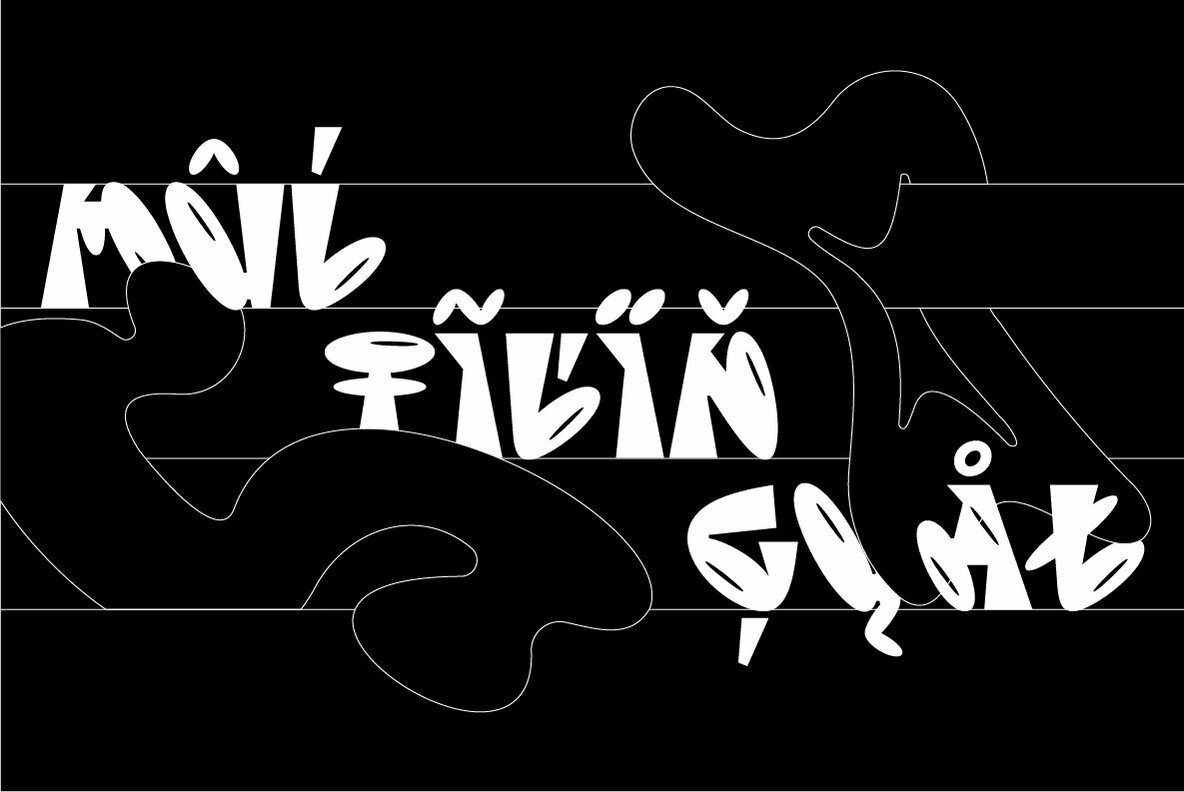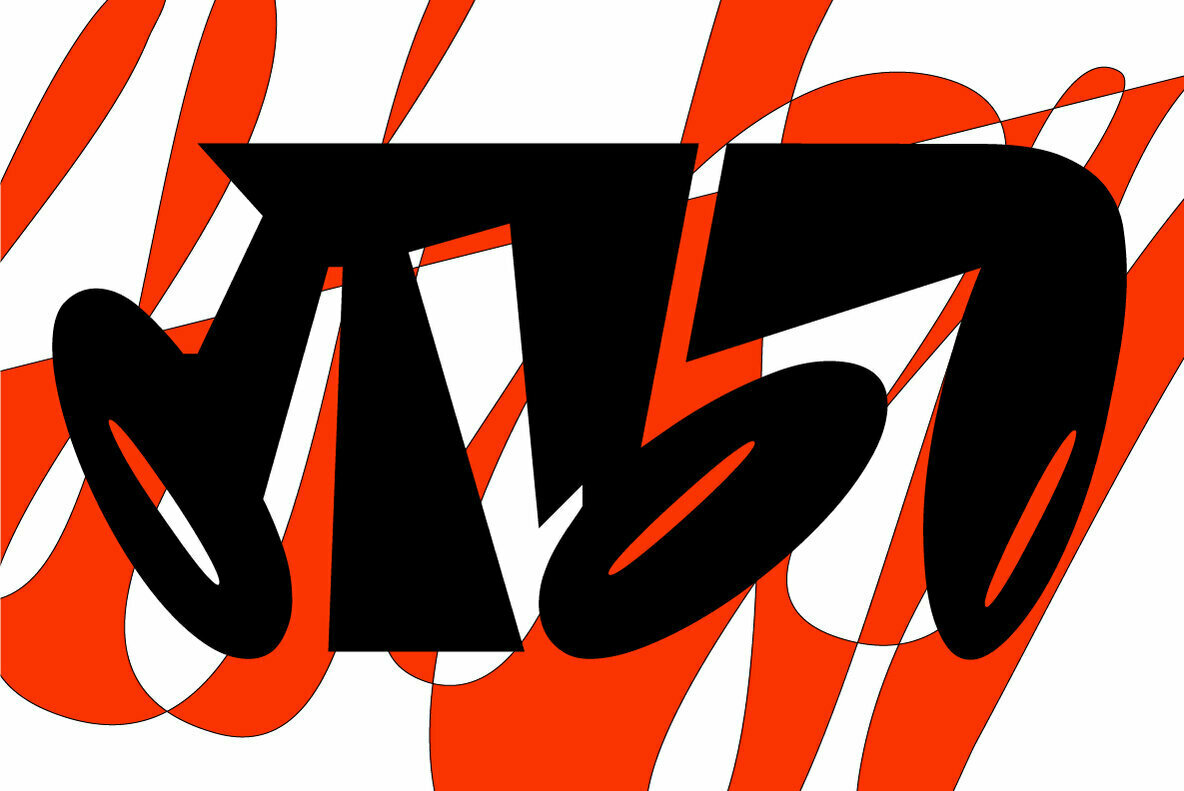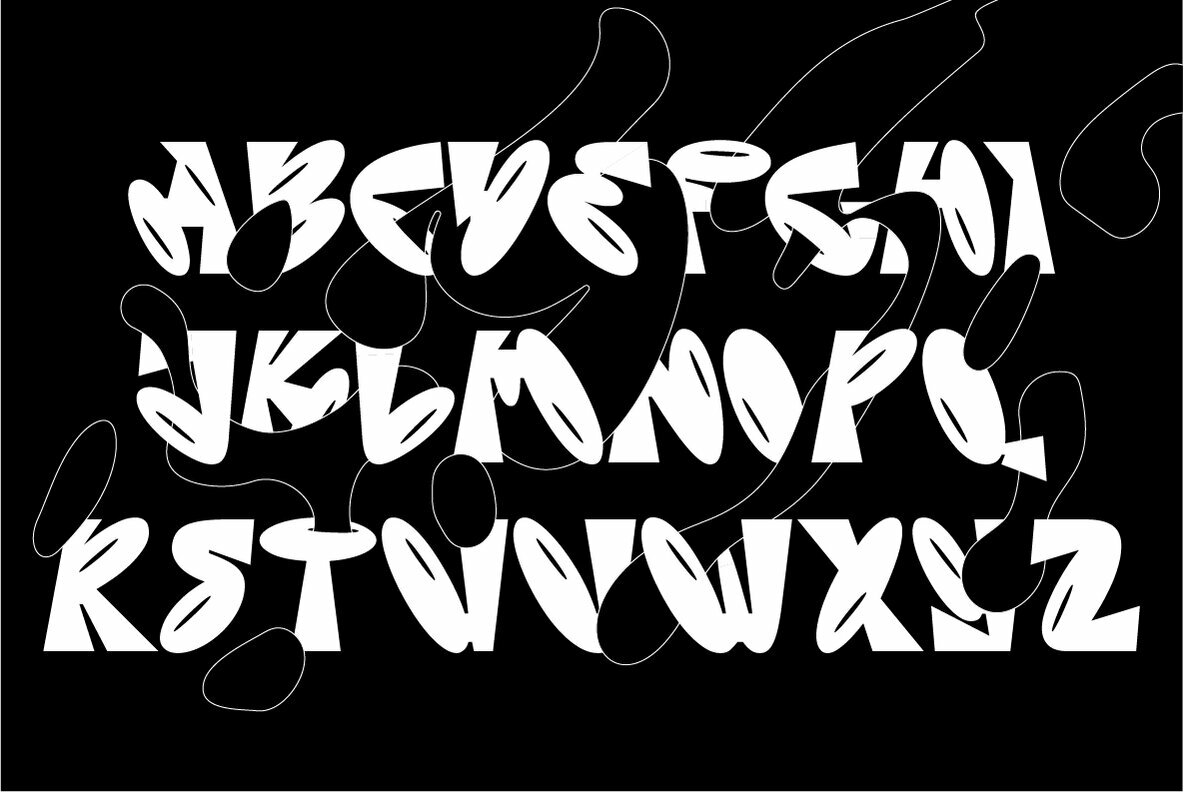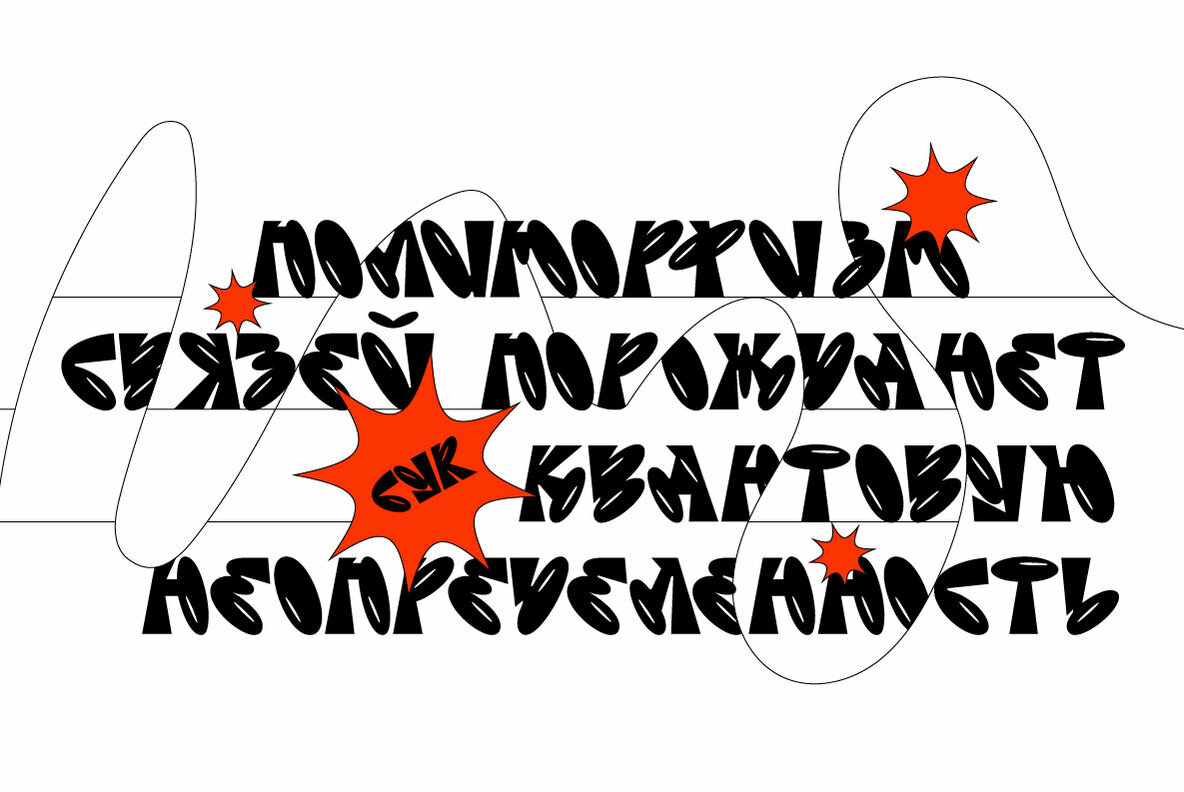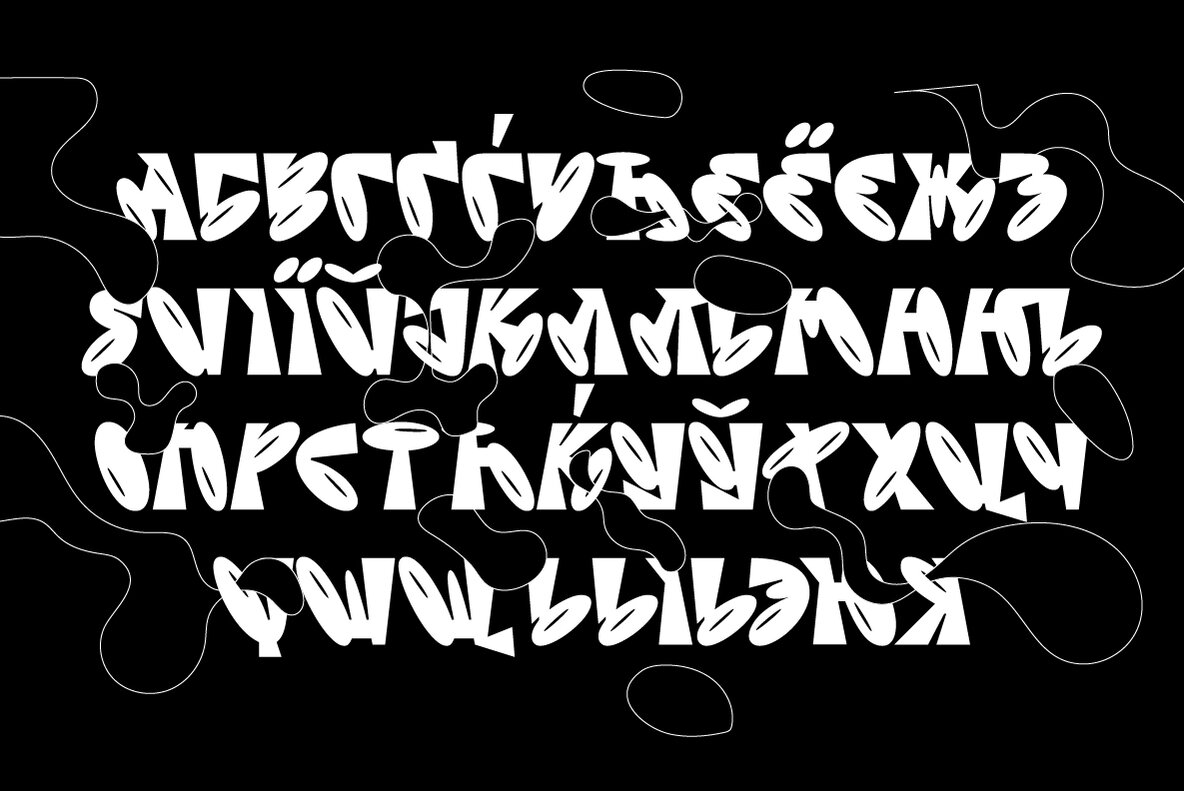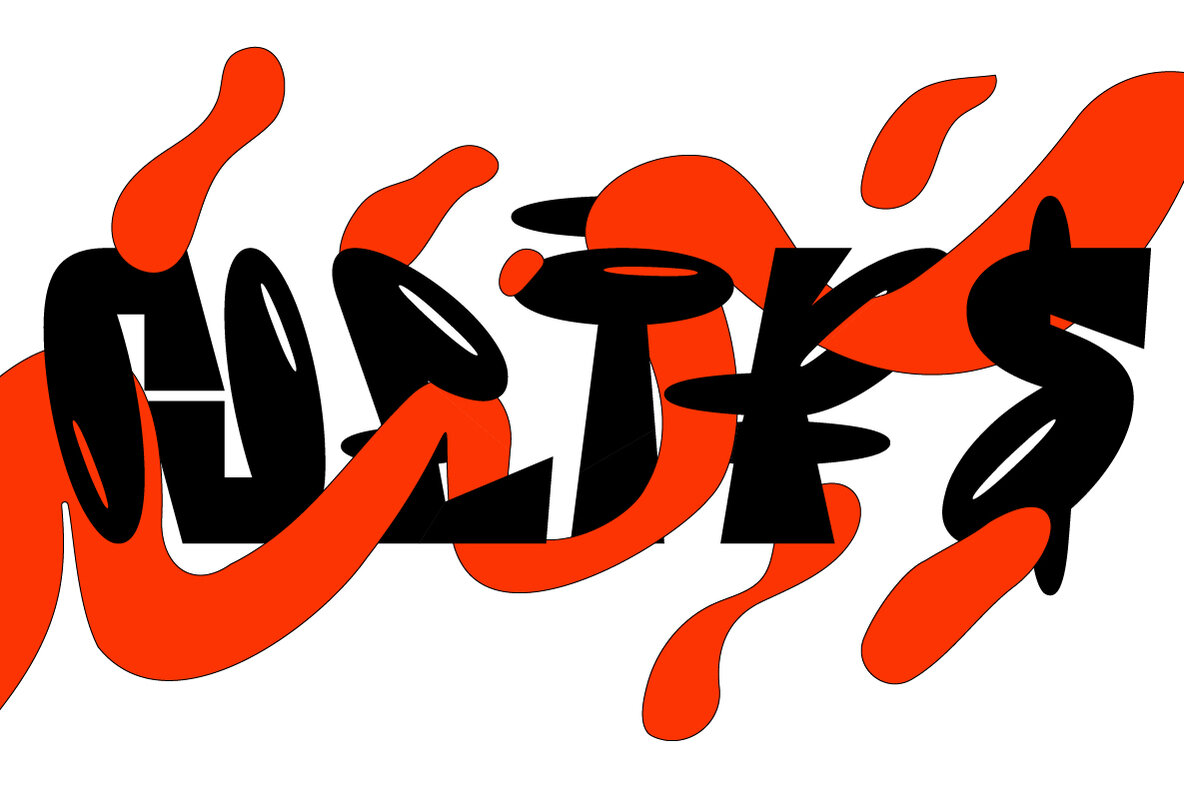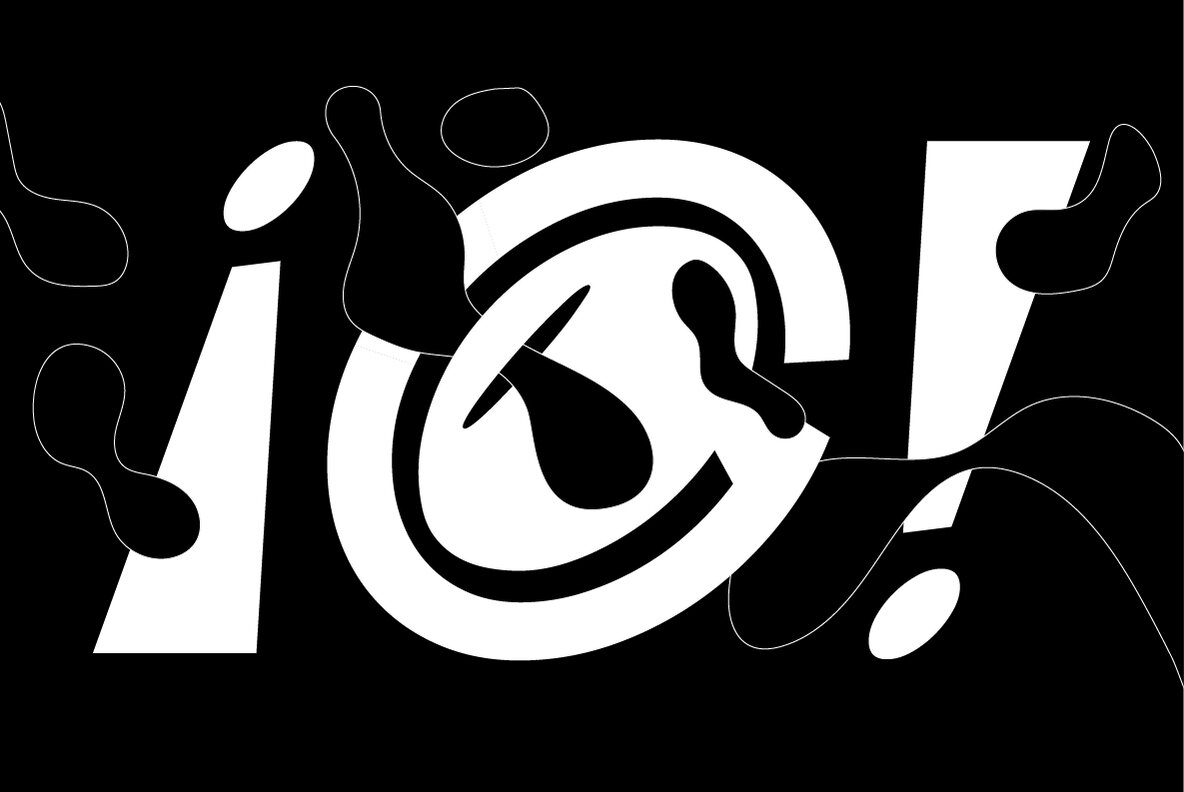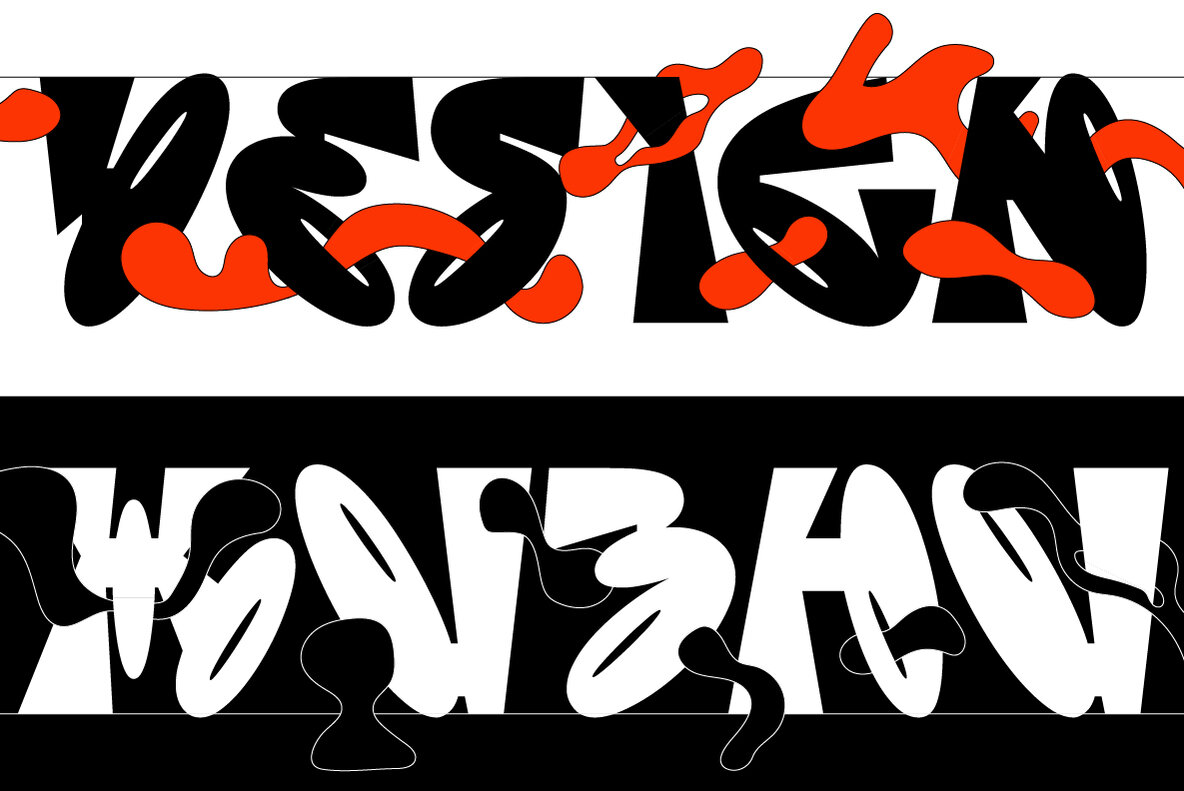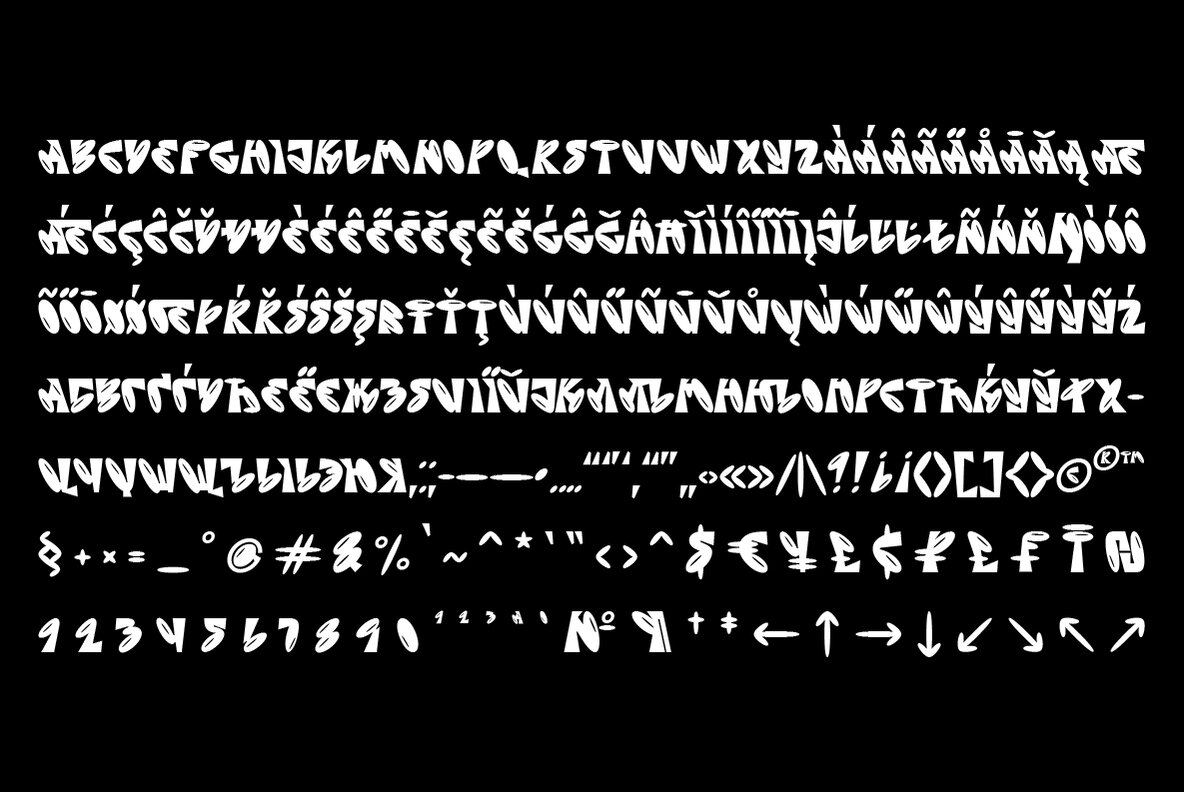
SK Sofuto Font
SK Sofuto Regular
SK Sofuto is a bold display typeface inspired by graffiti culture. Striking and unusual forms of the font distinguish it and do not allow you to forget about it. SK Sofuto is a typeface that cannot be unnoticed. It is bright, wicked, and screaming. The typeface supports multilingualism, namely Latin, both classical and extended, as well as Cyrillic! The SK Sofuto typeface will make your work noticeable and will fit perfectly in both poster and printing design, as well as in web design.